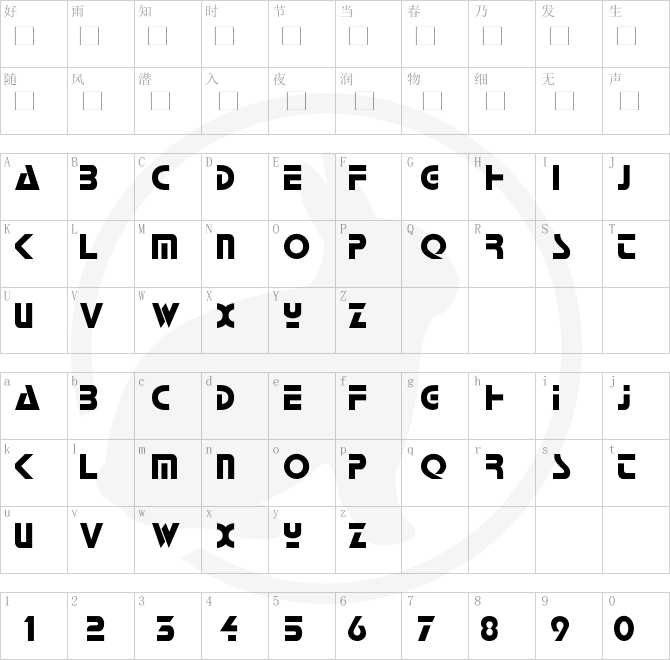
- Font Name:Babylon5_Station
Babylon5_Station.ttf is a very beautiful artistic font, Babylon5_Station.ttf is widely used in the design and printing of various books and pictures,Babylon5_Station.ttf has a strong visual impact,Babylon5_Station.ttf is a commonly used font in newspapers, magazines and books, and is used in posters, e-commerce Poster design, store design, logo design, font design and other fields.Babylon5_Station.